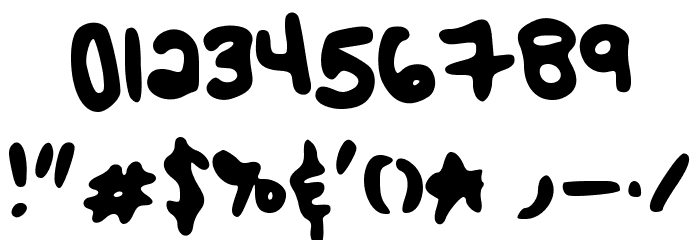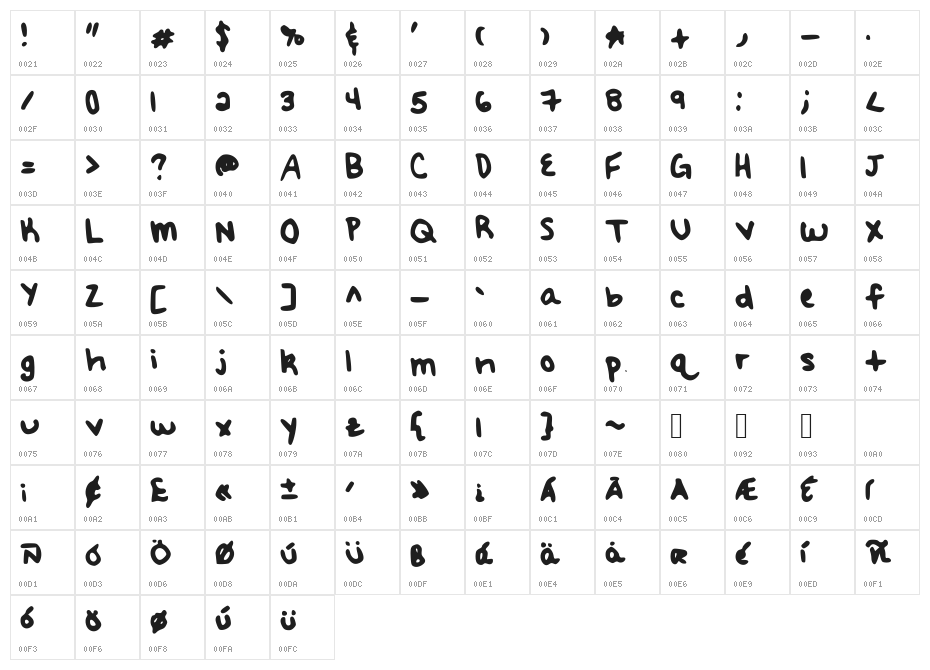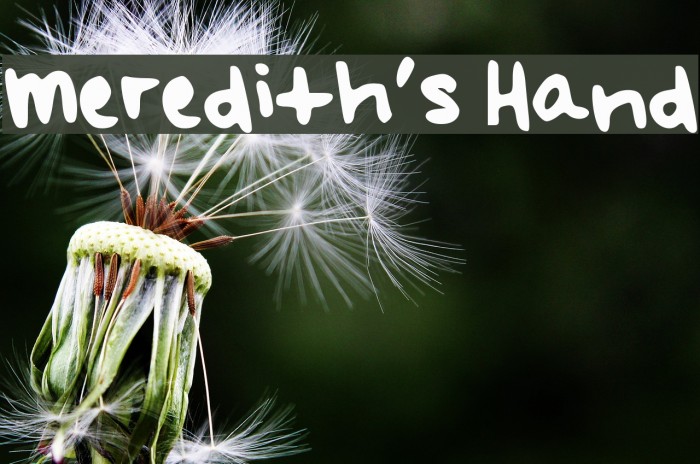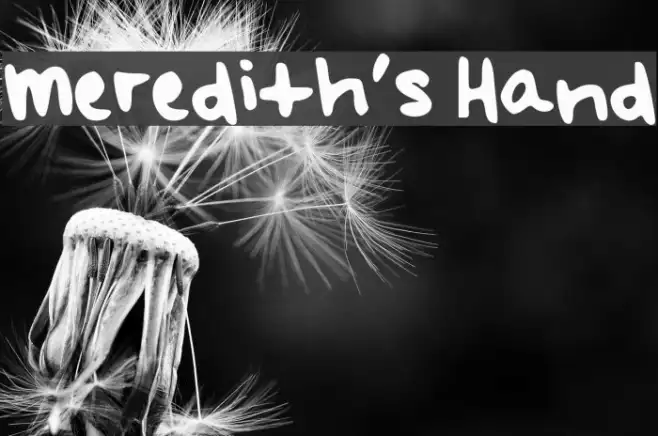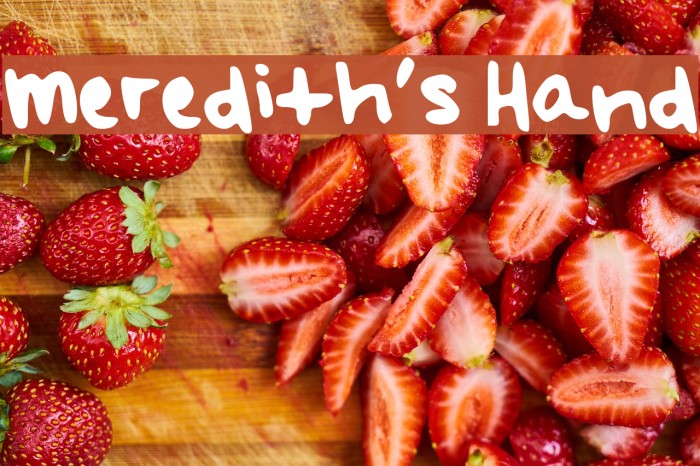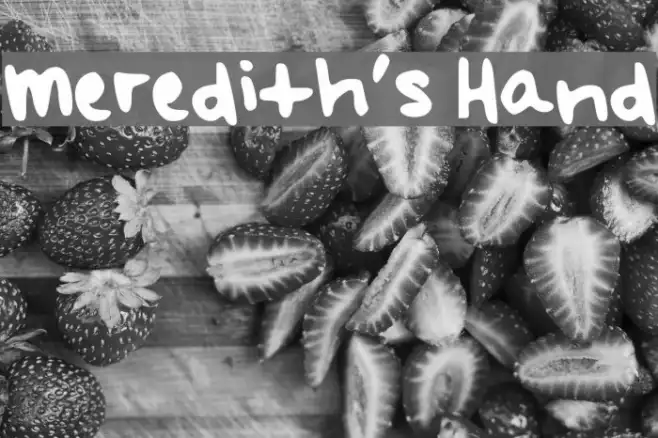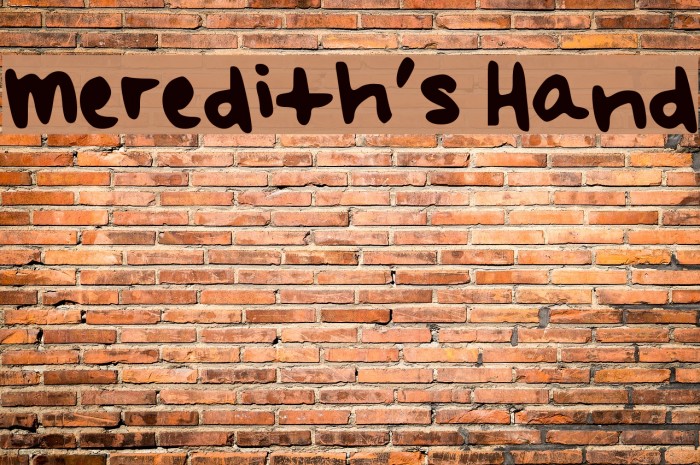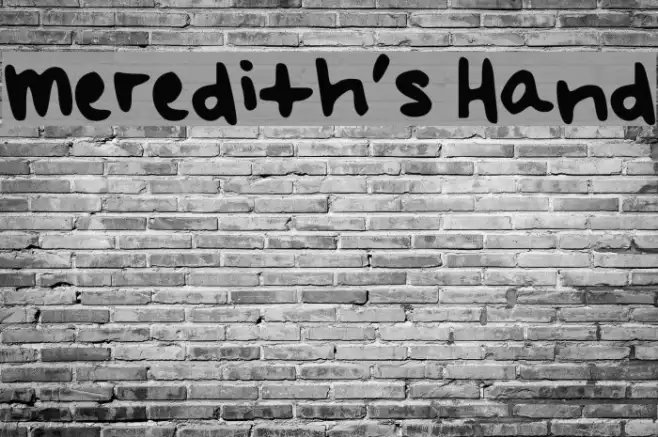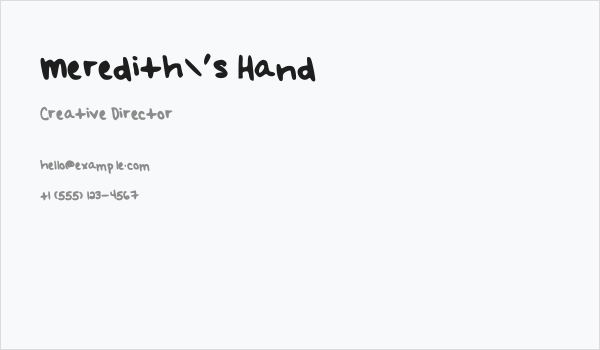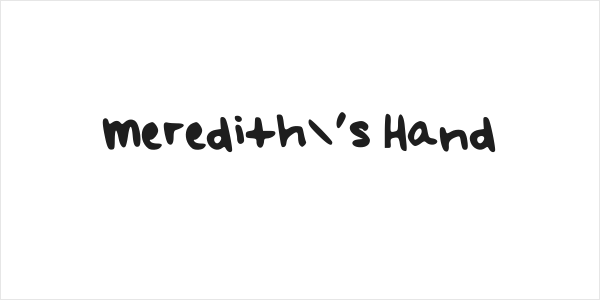
Meredith's Hand Font
Meredith's Hand Description
This font exudes a playful and casual handwritten style, characterized by its bold and rounded letterforms. The strokes are thick and consistent, giving it a strong presence on the page. Each character is uniquely crafted, maintaining a sense of individuality while ensuring readability. The uppercase and lowercase letters are well-balanced, with a slight tilt that adds to the informal and friendly appearance. Numbers and special characters follow the same design principles, making them easily recognizable and cohesive with the overall style. This font is perfect for projects that require a personal touch, conveying warmth and approachability.
| Proposed Projects | Ideal for greeting cards, children's books, playful branding, and social media graphics. |